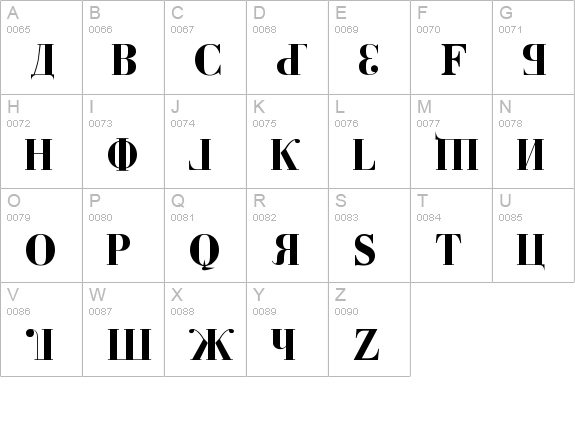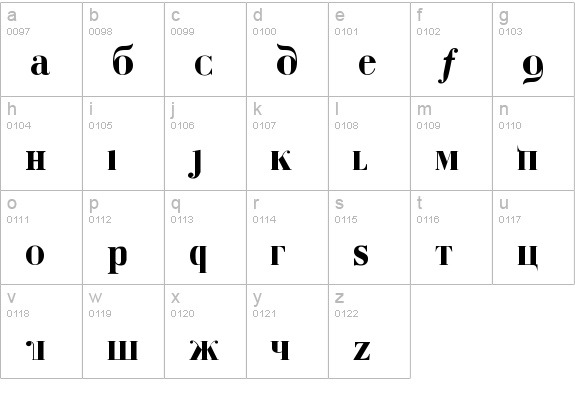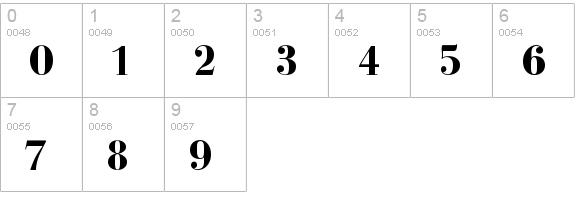
Kremlin Duma Bold is a strong, high-contrast variant in the Kremlin typeface family \xE2\x80\x94 well suited to headlines, attention-grabbing titles, and strong calls-to-action.
Introducing Kremlin Duma Bold, a remarkable font that exudes power and sophistication. With its strong and assertive letterforms, this typeface commands attention and leaves a lasting impression. Ideal for headlines, logos, and branding materials, Kremlin Duma Bold adds a touch of elegance and authority to any design project. This versatile font boasts a bold weight, making it perfect for making a statement. Its clean lines and sharp angles create a sense of modernity and professionalism. Whether used in print or digital mediums, Kremlin Duma Bold delivers a bold and impactful visual experience. One of the best features of Kremlin Duma Bold is that it is freely available for download at FontsMarket.com. This means that designers, creatives, and enthusiasts alike can have access to this exceptional font without any cost. By providing it free of charge, Kremlin Duma Bold enables designers to explore their creativity without limitations. Bold, confident, and effortlessly stylish, Kremlin Duma Bold is a typeface that demands attention. Its versatility and accessibility make it a must-have for any designer's toolkit. So, don't miss the opportunity to download it for free at FontsMarket.com and elevate your designs with the striking presence of Kremlin Duma Bold.